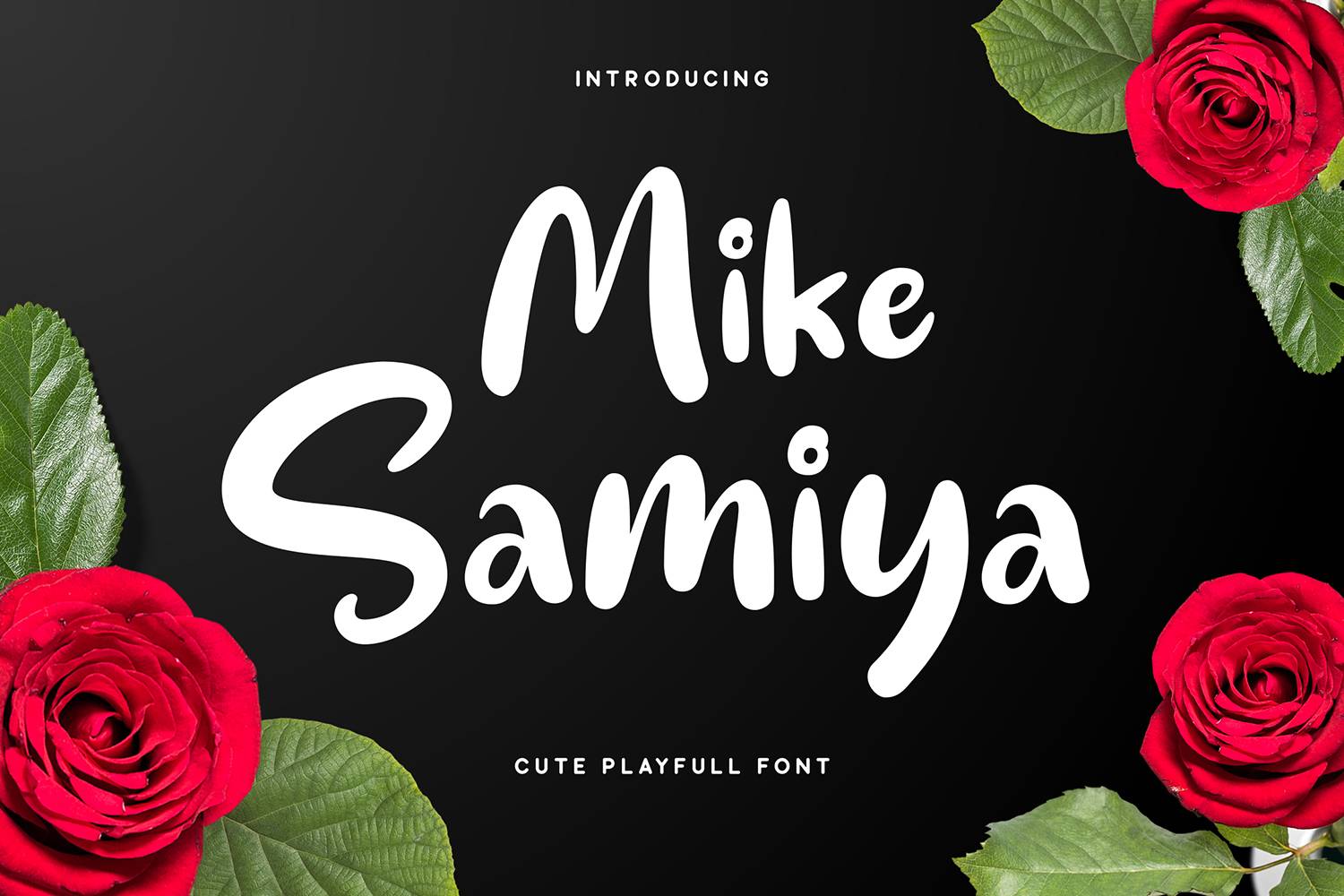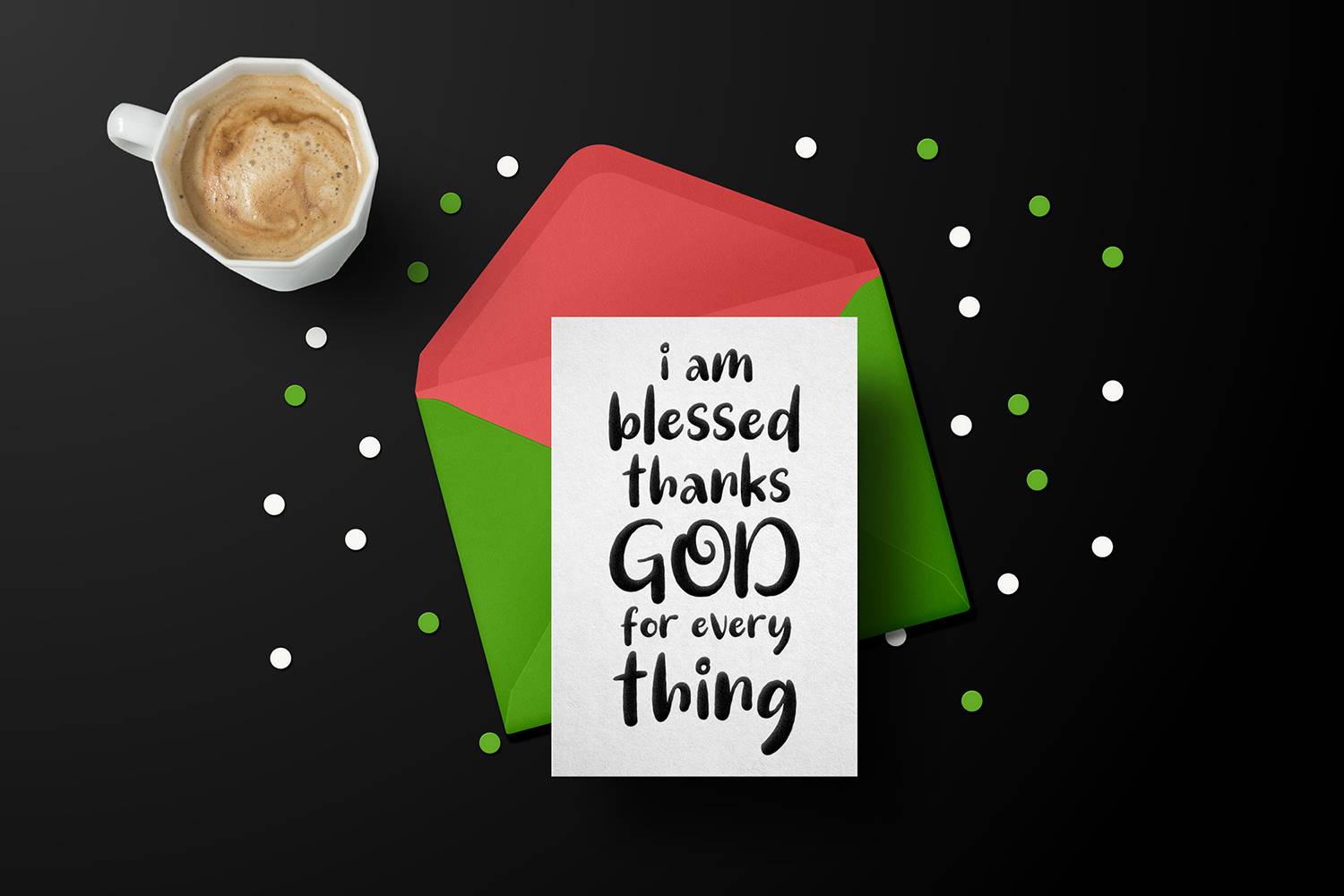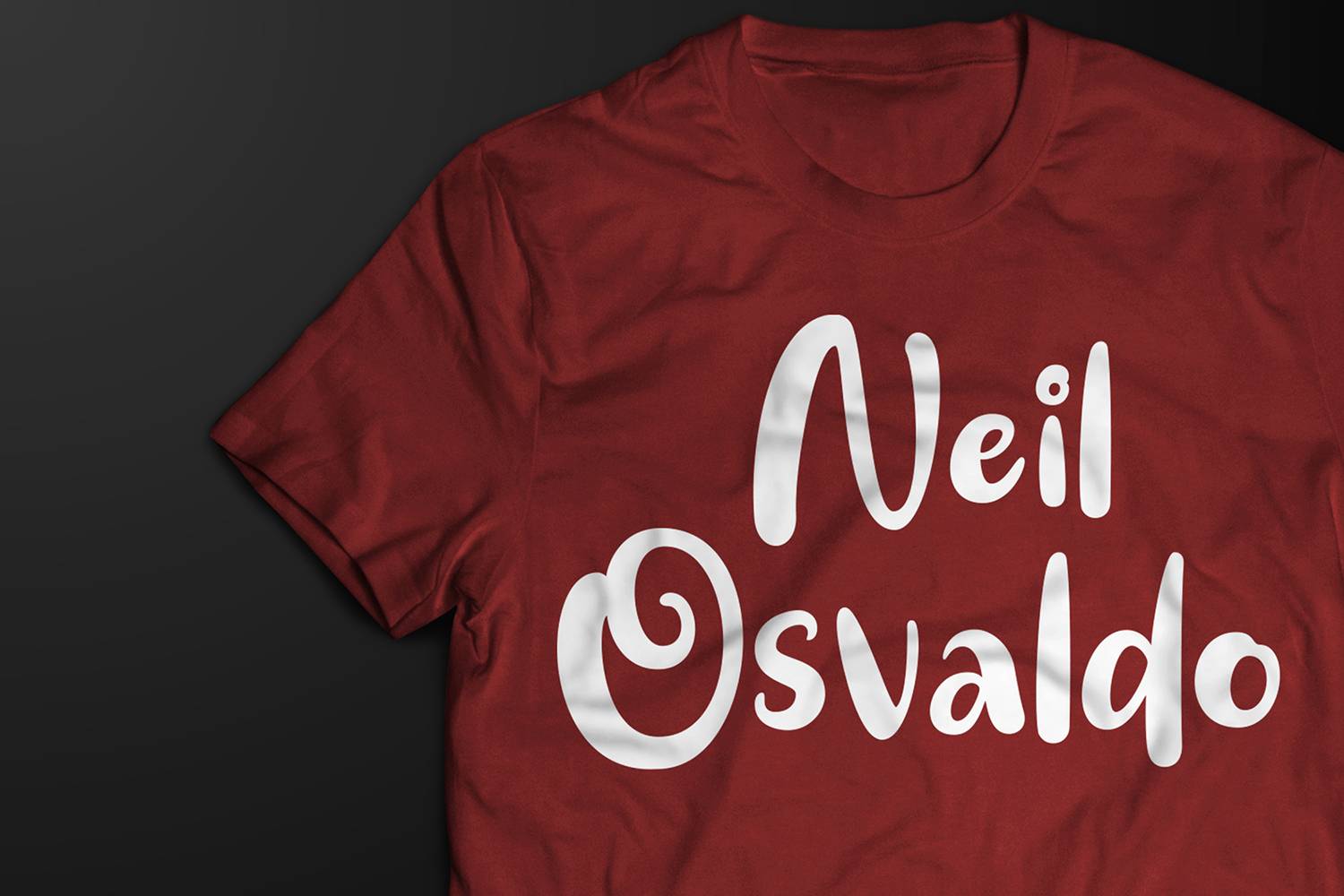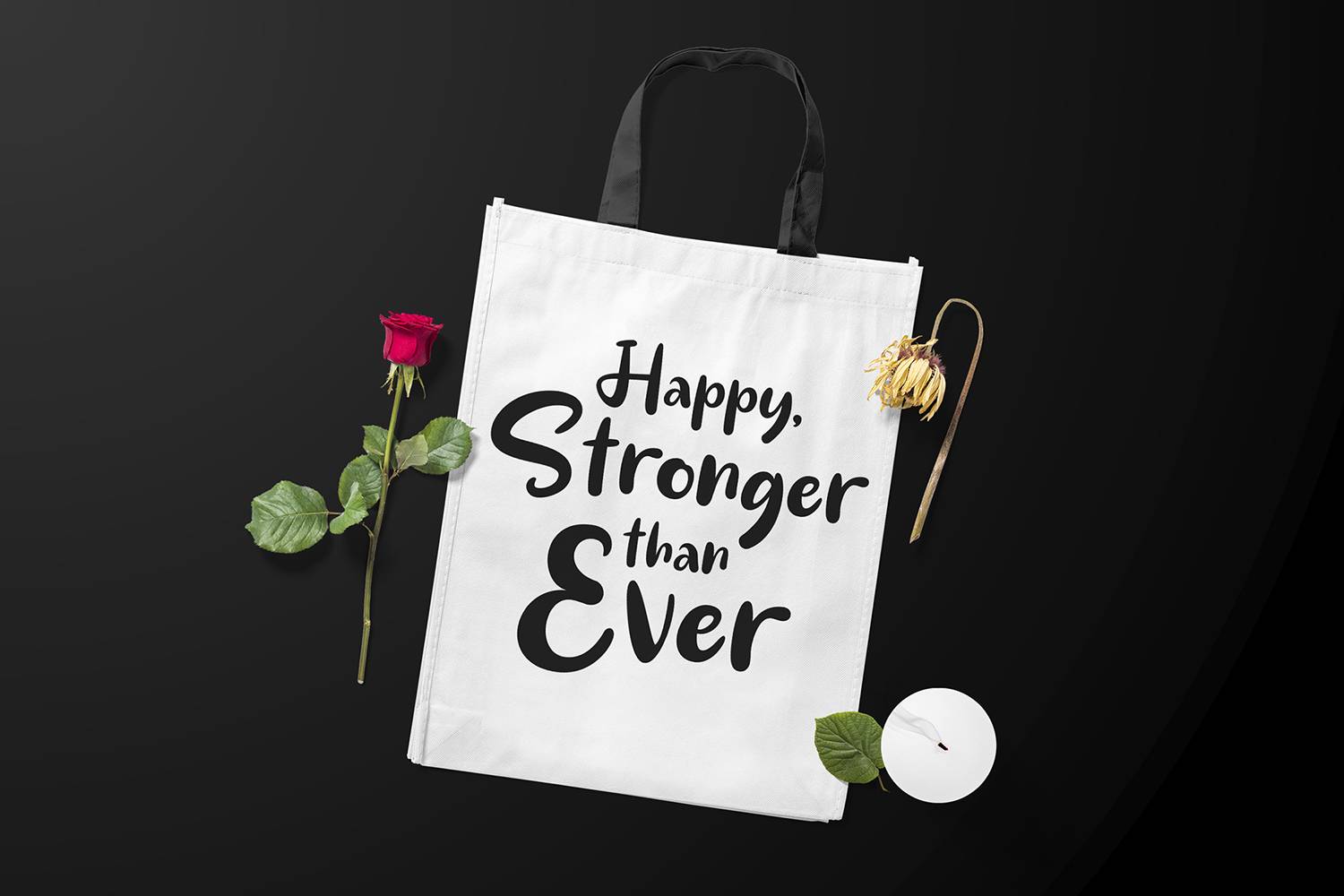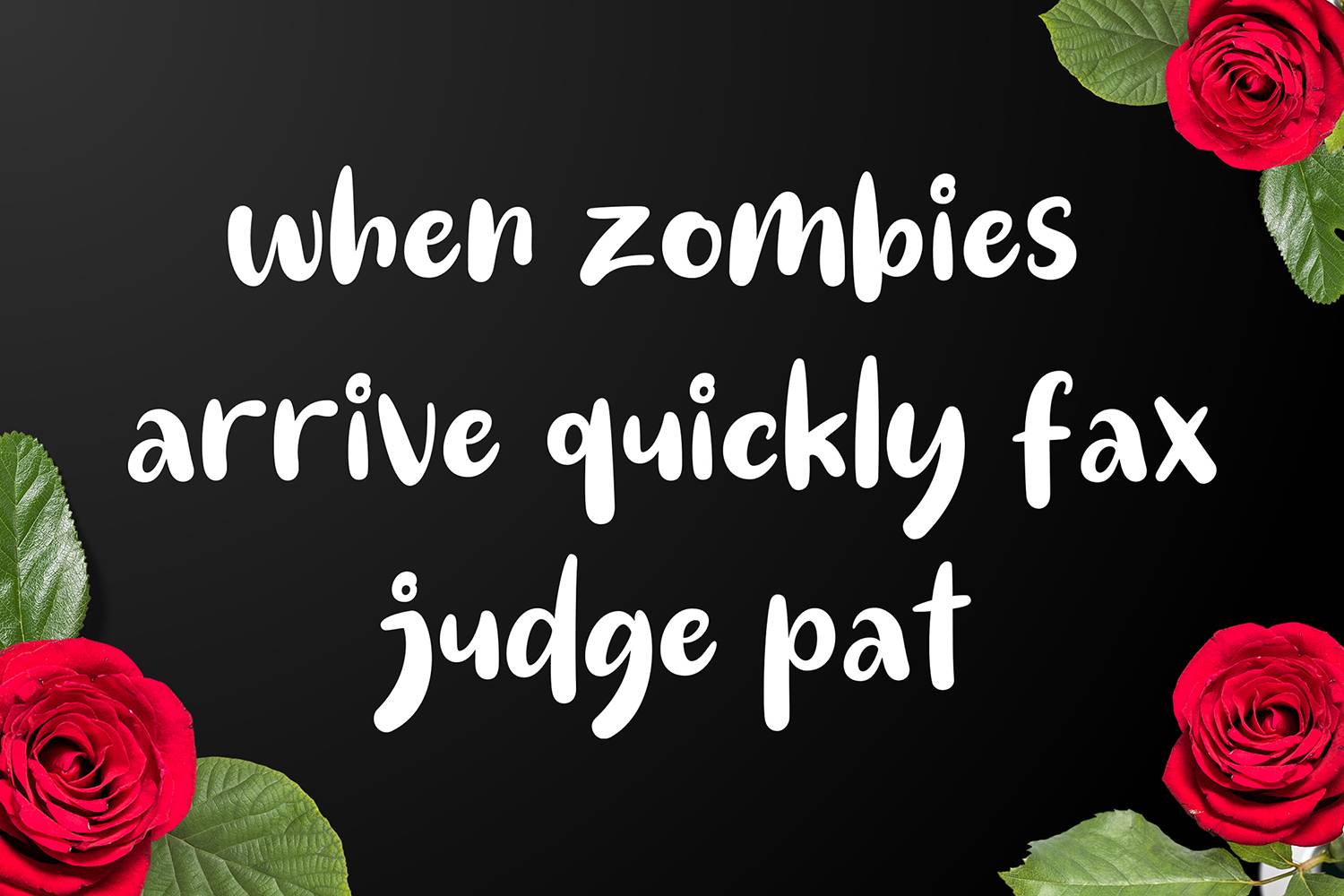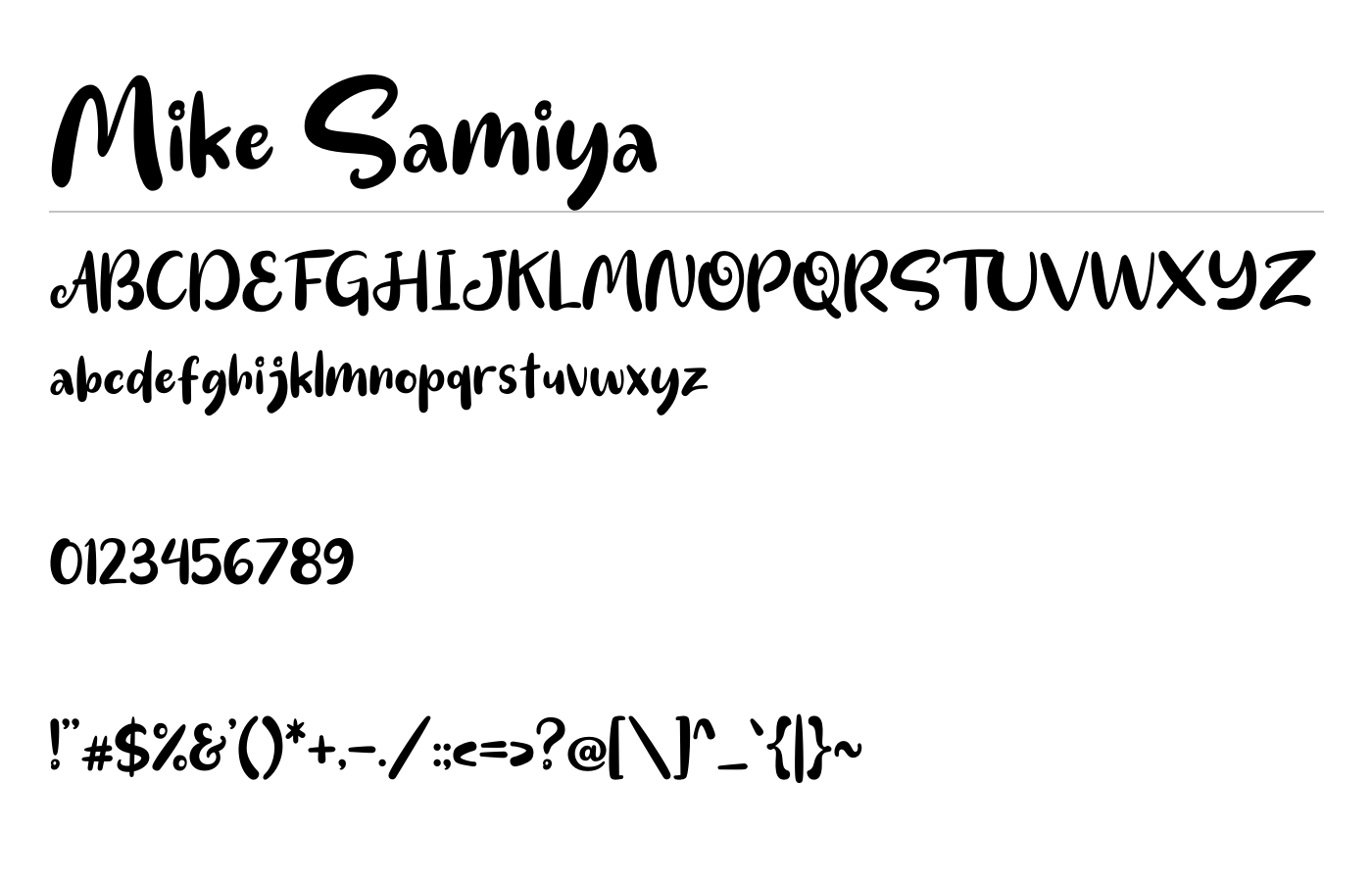
Mike Samiya is a playful and casual handwritten font with a bold weight and a lively, slightly condensed feel. Its quirky letterforms and whimsical details give it a friendly, approachable personality that works well for informal branding, children's products, and creative projects. This font shines in headlines, logos, and packaging where a fun and energetic vibe is desired.
Mike Samiya Font
About Mike Samiya Font
| Font family | Mike Samiya Font |
| Designer | Akhmad Reza Fauzi |